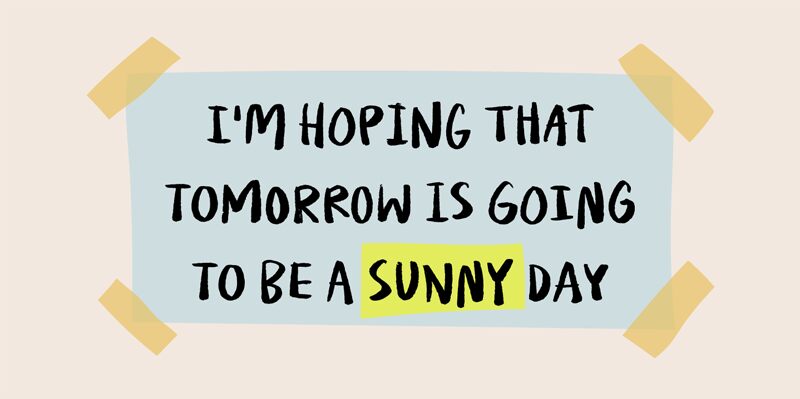
Rough Bluff brush font, designed by Pizzadude, is a perfect choice for projects that require a touch of edginess and playfulness. With its rough edges and bold strokes, this semi-bold typeface adds character to any design. The font's width allows it to stand out on posters, flyers, social media graphics, and even product packaging. Its casual feel makes it suitable for anything from children's books to music festival posters. Whether you're looking for a fun and unique font for your next project or simply want to add some personality to your designs, Rough Bluff is the answer!